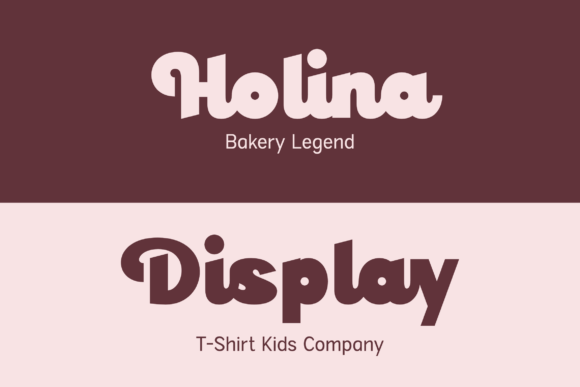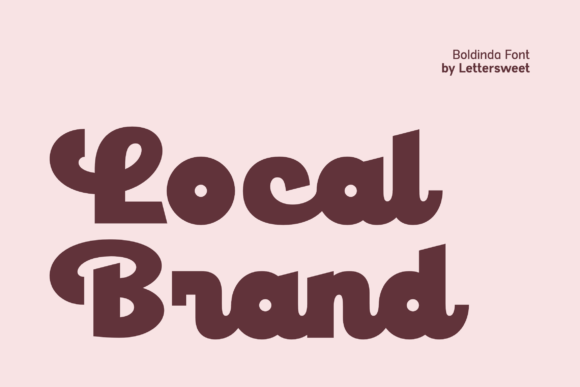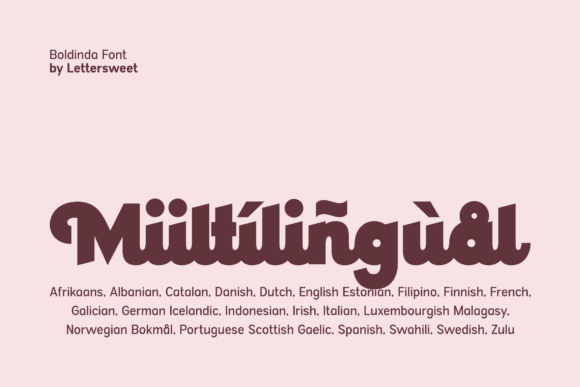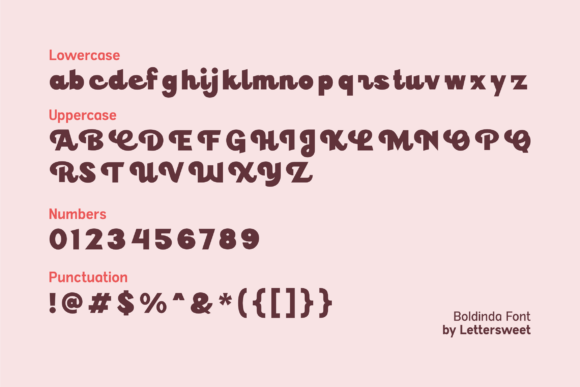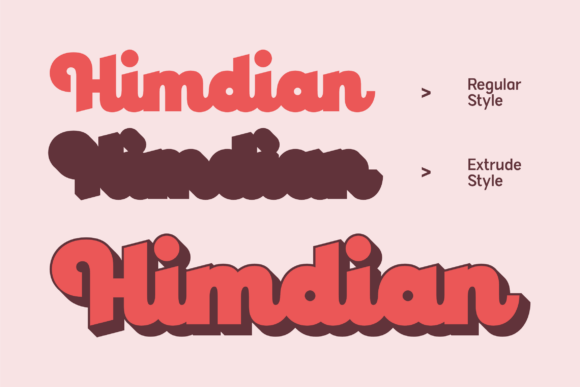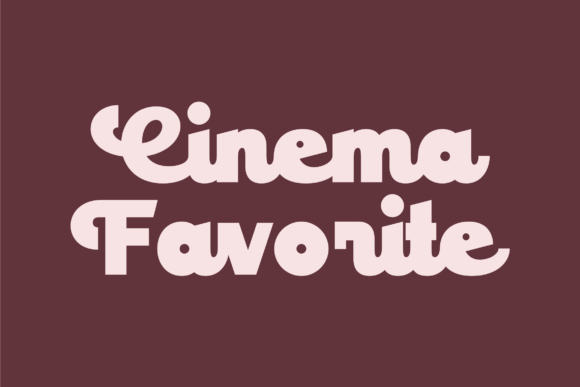
Unleashing Creativity with the Boldinda Font
Have you ever been stuck in a design rut, searching for the perfect font to elevate your project? That’s where the magic happens. It starts with a spark of inspiration – a color palette, a typography trend, or a font that speaks to your creative soul. For many designers, that spark is the Boldinda Font. This stunning script font is designed to bring warmth, confidence, and personality to your designs, making it the perfect solution for those looking to add a touch of retro charm with a modern twist.
The Boldinda Font is more than just a stylish addition to your designs – it’s a valuable tool for designers who want to create high-impact visuals without sacrificing readability. Its unique blend of smooth curves, bold strokes, and friendly flow makes it an ideal choice for a wide range of design projects, from logos and branding to social media graphics and merchandise.
- Unique Characteristics: Boldinda features a unique blend of modern and classic elements, with distinctive letterforms and elegant flourishes that set it apart from other fonts.
Boldinda Font Review
Overall, I think Boldinda Font is an interesting addition to any designer’s toolkit. ✨ The font’s modern aesthetic and bold lines make it perfect for creating eye-catching headlines or titles. The font’s high x-height gives it a unique feel that can add some much-needed character to a design.
One of the things that I like most about Boldinda Font is its versatility. ✨ It works well in both digital and print media, and its bold lines make it perfect for creating striking visual effects. The font also comes in a range of weights and styles, making it easy to find the perfect fit for your design.
That being said, there are a few limitations to Boldinda Font that designers should be aware of. ⚠️ For one, the font’s bold lines can sometimes make it difficult to read, especially at smaller sizes. Additionally, the font’s high x-height can make it look a bit too busy or cluttered if not used carefully.
- Limited readability at smaller sizes ⚠️
- Can look busy or cluttered if not used carefully ⚠️
Overall, I think Boldinda Font is a solid choice for designers looking to add some modern flair to their designs. While it may have a few limitations, the font’s unique aesthetic and versatility make it a great addition to any toolkit.
Tips for Getting the Most Out of Boldinda Font
1. Use Boldinda font for headings and titles to create a visually appealing design.
2. Pair Boldinda font with other fonts to create a unique and stylish typography.
3. Experiment with different font sizes and styles to create a bold and eye-catching effect.
Common Use Cases for Boldinda Font
1. Branding and logos: Boldinda font is perfect for creating bold and eye-catching logos.
2. Social media posts: Use Bold